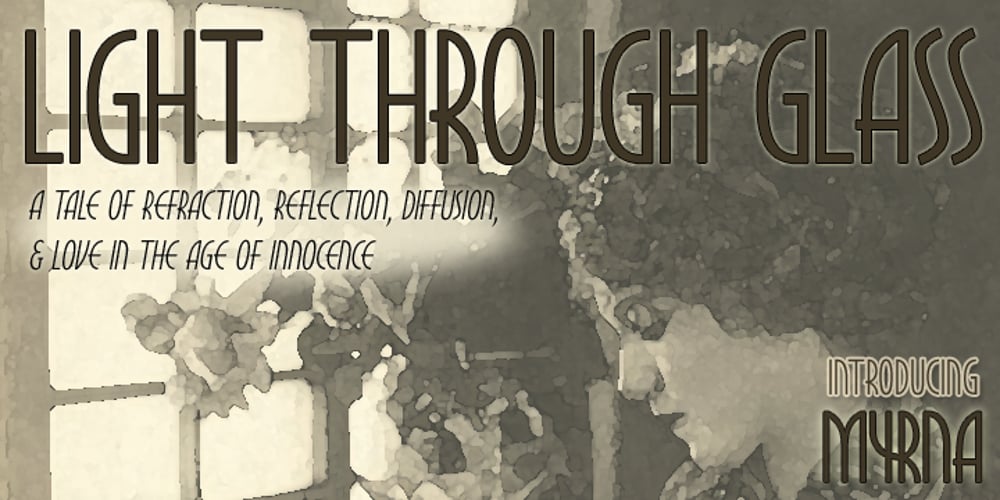
Myrna Font Family was designed by Alec Julien and published by Haiku Monkey. Myrna contains 5 styles and family package options. Tall, thin, and seductive, Myrna is a movie star from the golden age of film. Suggested uses include poster design, book and magazine covers, and any settings that a tall thin movie star might grace with her glamour.